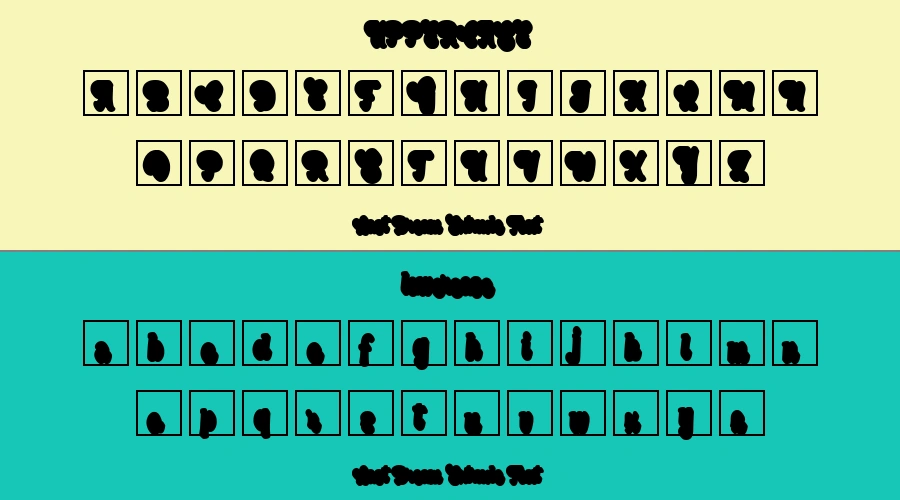
About Last Dream Extrude Font
When typographic excellence matters most, Last Dream Extrude Font delivers through its thoughtful blend of modular forms and consistency. Specially crafted for scientific journals, it offers the reliability and academic acceptance required for sophisticated design work. Every detail serves a purpose.
The character set showcases thoughtful details like natural flow alongside functional decorative sets. This proves especially valuable in product names, where format conversion directly influences results. Particular attention was paid to aperture size and market positioning during development.